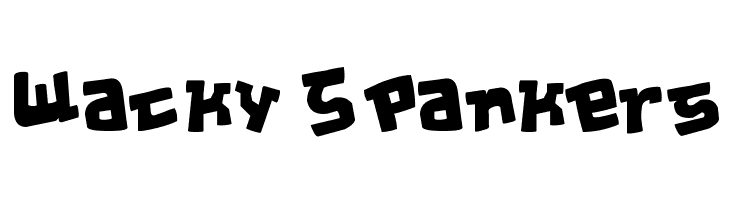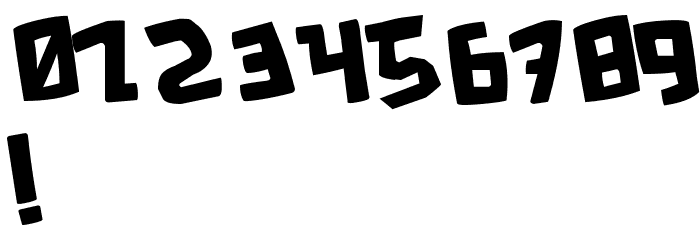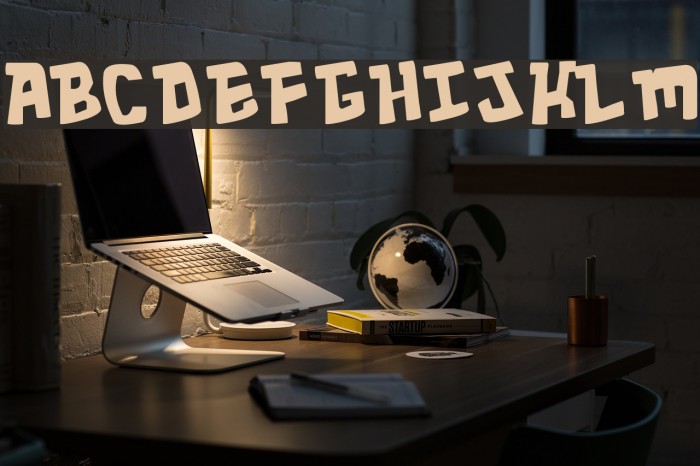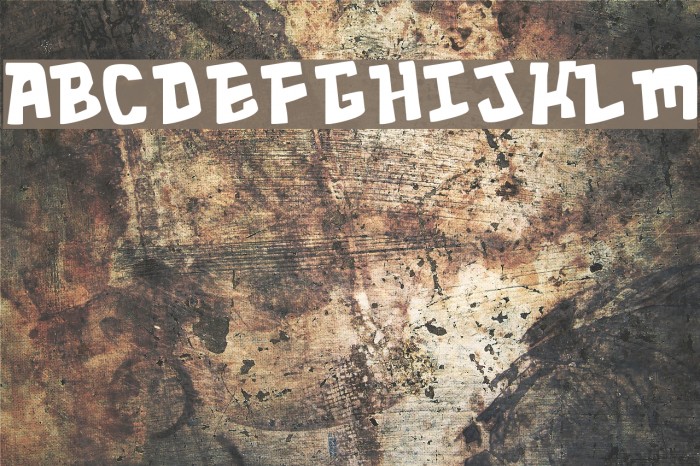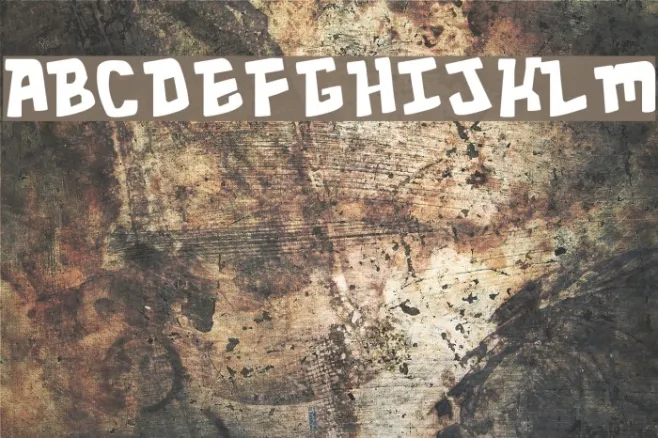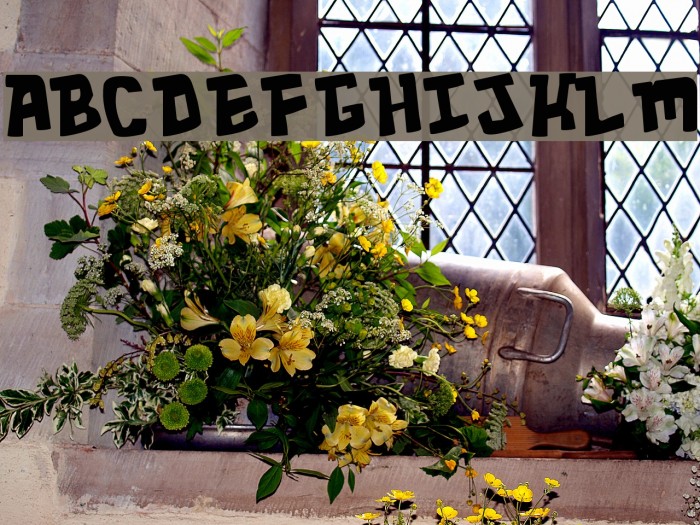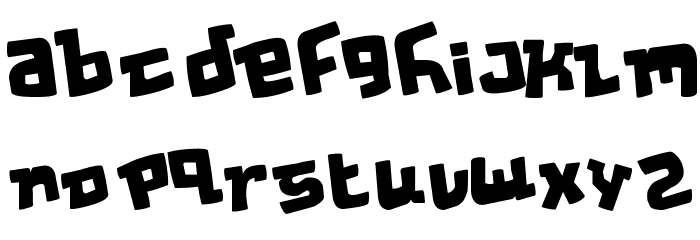
Wacky Spankers Font
Wacky Spankers Description
This font features a playful and quirky design with irregular, bold strokes that give it a lively and dynamic appearance. Each character has a unique, slightly tilted orientation, contributing to its whimsical and informal style. The letters are bold and chunky, with uneven edges that add to the font's charm. The numbers and special characters maintain the same playful aesthetic, making it suitable for creative and fun projects. The overall look is eye-catching and distinctive, perfect for grabbing attention and conveying a sense of fun and spontaneity.
| Overall Style | Playful, Quirky, Fun |
| Proposed Projects | Ideal for children's books, comic strips, playful branding, party invitations, and creative posters. |